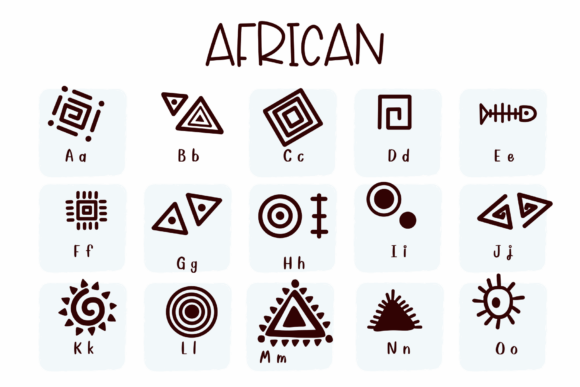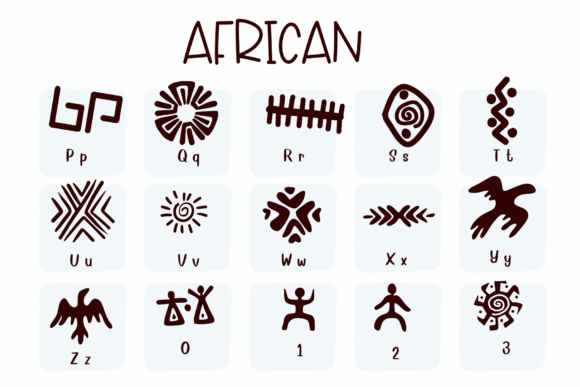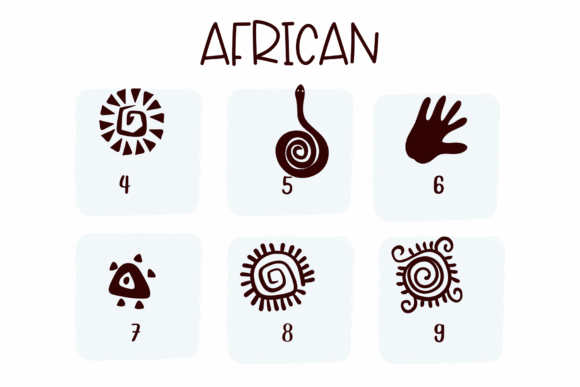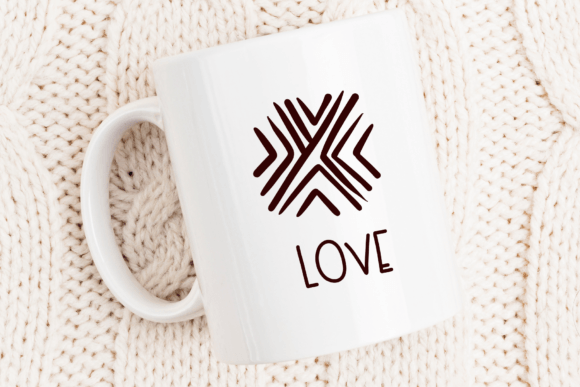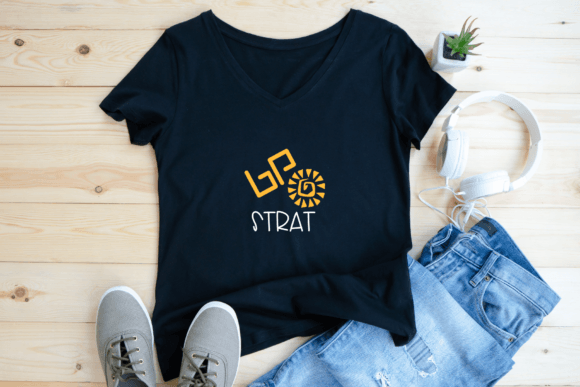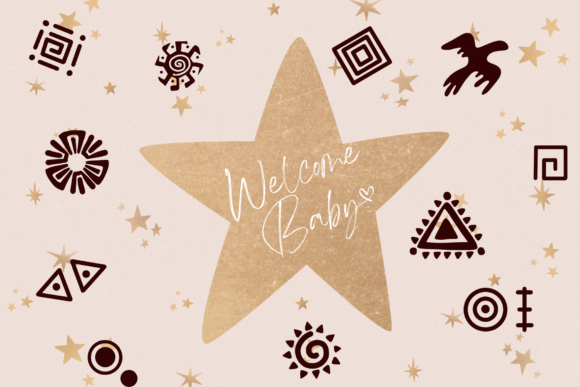
Discover the Unique Charm of African Font: Elevate Your Creative Projects
Are you a designer, crafter, or DIY enthusiast looking for a font that can add an abstract and exotic touch to your creative projects? Look no further than the African Font, a stunning dingbats font that can take your designs to the next level. In this article, we’ll explore the features and benefits of African Font, and show you how it can enhance your wedding invitations, DIY projects, crafts, decorations, logos, and many other creative ideas.
What is African Font?
African Font is a unique dingbats font that features abstract and geometric shapes inspired by African art and culture. The font is designed to add a touch of exoticism and sophistication to your designs, making it perfect for a wide range of creative projects. With its bold and eye-catching characters, African Font is sure to make your designs stand out from the crowd.
Features of African Font
- Abstract theme: African Font features an abstract theme that is inspired by African art and culture. The font’s characters are made up of geometric shapes and patterns that give it a unique and exotic look.
- Dingbats font: African Font is a dingbats font, which means that it features symbols and shapes rather than traditional letters and numbers. This makes it perfect for designs where you want to add a decorative touch.
- Scalable: African Font is a scalable font, which means that it can be used in a wide range of sizes and applications. Whether you’re designing a wedding invitation or a billboard, African Font will look great.
How to Use African Font in Your Creative Projects
African Font is a versatile font that can be used in a wide range of creative projects. Here are some ideas to get you started:
- Wedding invitations: Add a touch of exoticism and sophistication to your wedding invitations with African Font. Use it to create beautiful and unique designs that will set your wedding apart from the rest.
- DIY projects: African Font is perfect for DIY projects, such as crafting, scrapbooking, and home decor. Use it to add a decorative touch to your projects and make them stand out.
- Logos and branding: African Font can be used to create unique and memorable logos and branding materials. Its abstract theme and geometric shapes make it perfect for businesses that want to stand out from the crowd.
- Decorations: Use African Font to create beautiful and unique decorations, such as wall art, signs, and banners. Its bold and eye-catching characters make it perfect for adding a decorative touch to any room.
Benefits of Using African Font
There are many benefits to using African Font in your creative projects. Here are a few:
- Unique and exotic look: African Font adds a unique and exotic touch to your designs, making them stand out from the crowd.
- Versatile: African Font can be used in a wide range of creative projects, from wedding invitations to logos and branding materials.
- Scalable: African Font is scalable, which means that it can be used in a wide range of sizes and applications.
African Font is a stunning dingbats font that can add an abstract and exotic touch to your creative projects. With its unique and geometric shapes, African Font is perfect for designers, crafters, and DIY enthusiasts who want to create beautiful and unique designs. Whether you’re designing a wedding invitation, logo, or decoration, African Font is sure to make your designs stand out from the crowd.